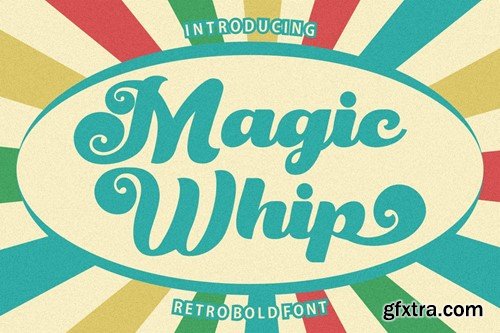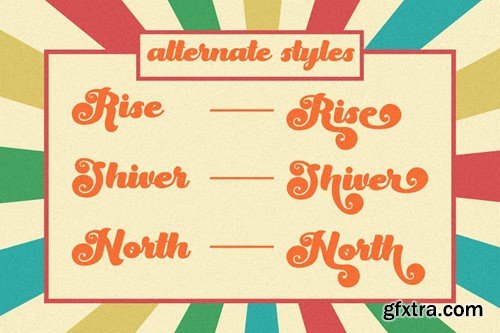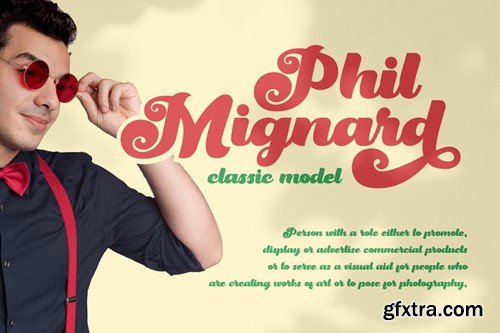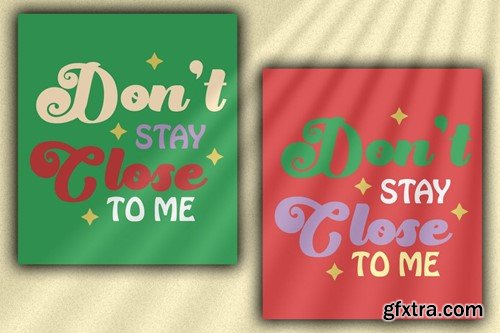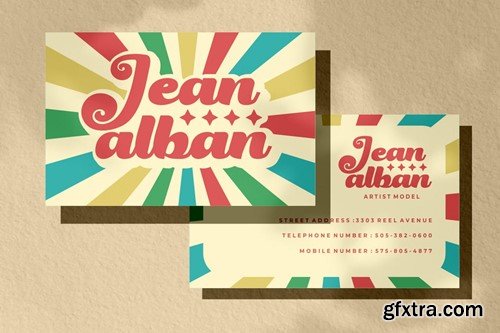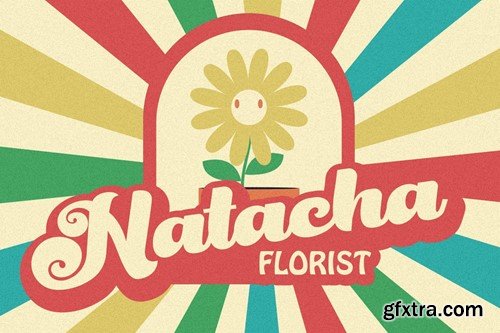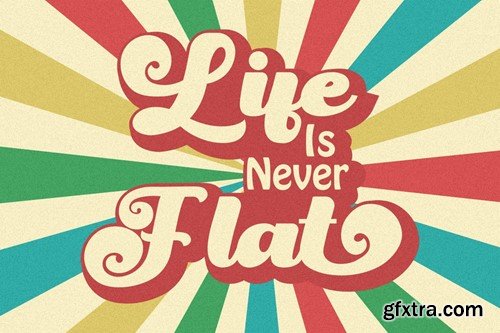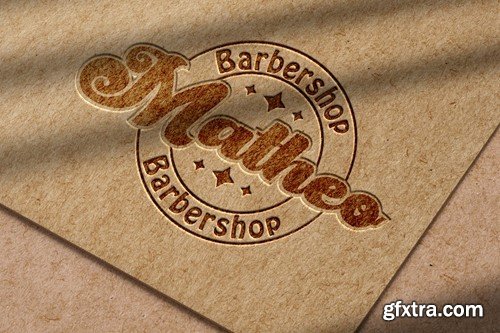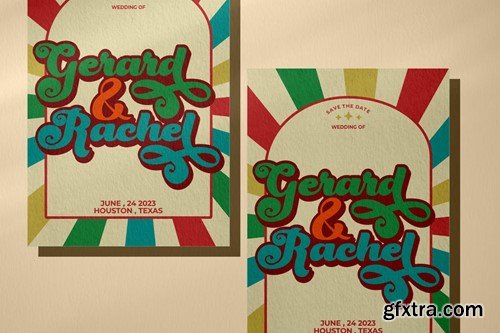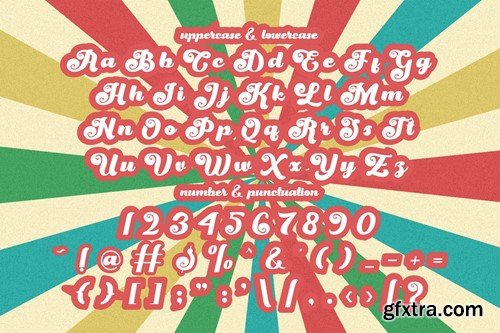
Magic Whip - 美术字体AJ8SPUE
Magic Whip – Retro Script Bold Font The Magic Whip - Retro Script Bold Font is a thick and groovy script font that exudes a strong retro or vintage vibe. It draws inspiration from classic script fonts of the 70s and 80s, capturing the essence of that era's design aesthetics. With a wide range of alternative characters, this font offers endless creative possibilities, allowing users to customize their designs to perfection. Ideal for logos, brand names, titles, headlines, posters, and quotes, Magic Whip adds a touch of nostalgic flair and bold style to any project. In Package : Feature : Note : The preview mock-up, element, shadow, image or graphic stock is not included in the download file. It’s only for presentation purpose. Thank you